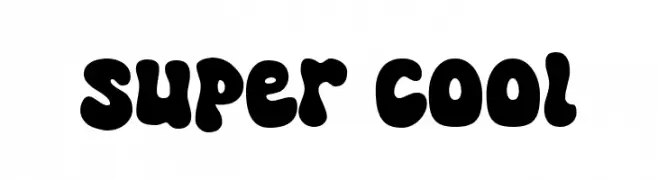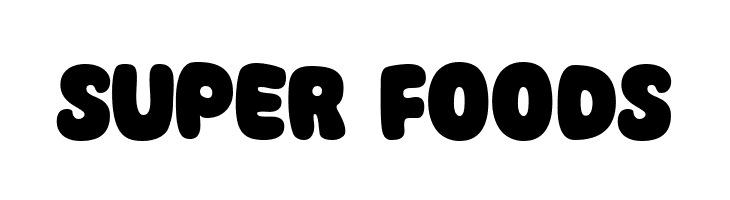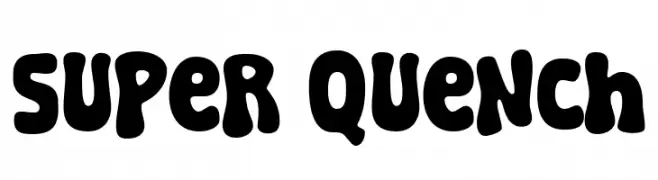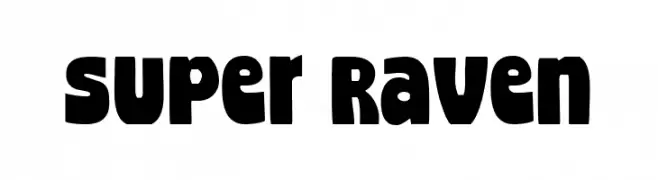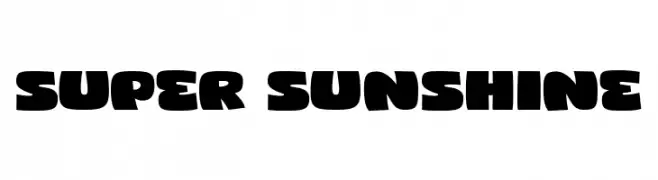
A bold, playful font with rounded, thick strokes and a bubbly appearance.
A playful, bold font with bubbly, rounded characters and a whimsical style.
A playful, bold font with rounded, bubbly characters ideal for casual use.
A playful, bold font with rounded, bubbly characters ideal for fun and whimsical designs.
A bold, playful font with thick, rounded serifs and a strong presence.
A bold, playful font with thick, rounded characters and a retro vibe.
A bold, playful font with rounded, bubble-like characters.
A bold, playful font with thick, rounded characters and a whimsical style.
A bold, playful font with thick, rounded characters and a bubbly appearance.